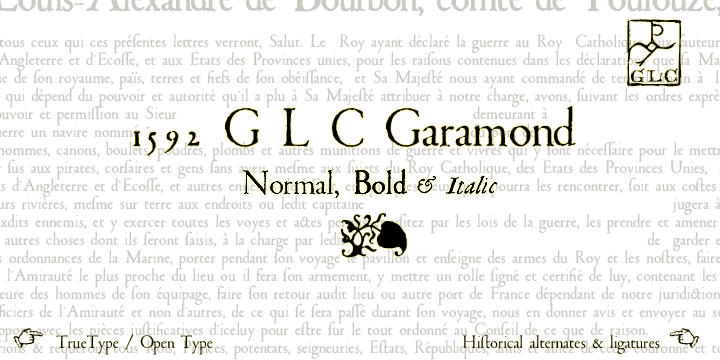
1592 GLC Garamond Font is perfect for academic publications, historical book reprints, classical literature editions, museum exhibition catalogs, scholarly journals, luxury brand communications, and prestigious literary projects that require authentic Renaissance typography.
This font is exciting because it faithfully recreates the original 16th-century Garamond letterforms used in historic printing, featuring meticulously researched character designs that preserve the authentic spirit of Renaissance humanism while ensuring modern digital functionality.
The 1592 GLC Garamond Font family includes regular and italic weights with historical ligatures, offering uppercase and lowercase letters, period-accurate numerals, classical punctuation marks, and authentic typographic ornaments that reflect true Renaissance printing traditions.
Publishing professionals consistently choose 1592 GLC Garamond Font Free Download for projects demanding historical authenticity and scholarly credibility. This exceptional typeface bridges four centuries of typographic excellence, delivering the timeless elegance that distinguished the greatest works of European literature and learning. The font's classical character makes it indispensable for academic institutions, luxury publishers, and cultural organizations where intellectual gravitas must be communicated through typography. Its authentic Renaissance heritage establishes immediate scholarly authority while maintaining exceptional readability for extended text passages. The carefully preserved historical details support sophisticated typographic hierarchies that honor traditional book design principles while meeting contemporary publishing standards. Whether you're producing scholarly monographs, creating museum exhibition materials, or designing premium literary editions, this typeface provides the authentic voice and intellectual distinction that separates serious academic work from commercial publishing, establishing immediate recognition among educated audiences who appreciate genuine historical scholarship and the enduring beauty of classical European typography that shaped Western intellectual tradition.